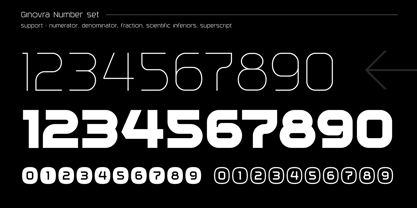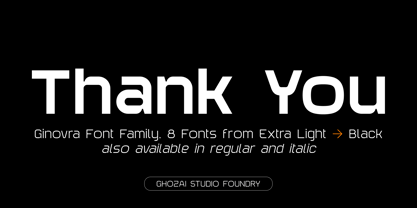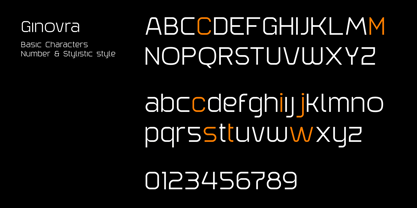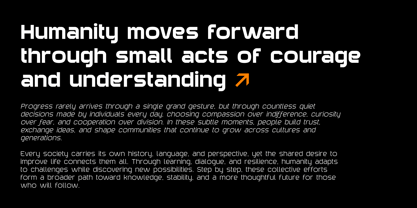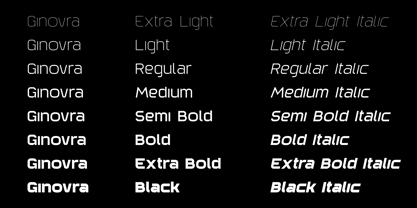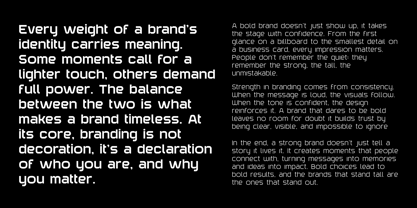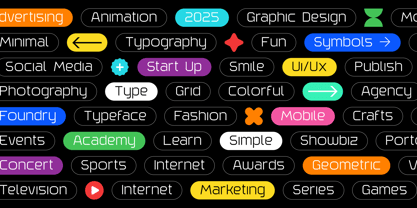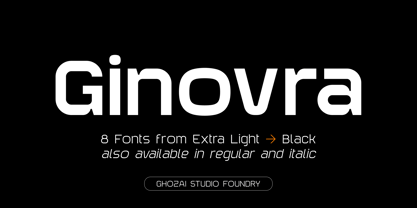
Ginovra
by Ghozai Studio
The Ginovra Font Family was designed by Manzur Ghozaali and published by Ghozai Studio. Ginovra contains 16 styles and family package options. More about this family
Ginovra is a grotesk-sans font family that offers 8 weights, ranging from Extra Light to Extra Bold, along with an italic option, totaling 16 fonts within one family. With a diverse array of weights, symbols, OpenType features, and multilingual glyph support, Ginovra ensures versatility for various languages and design requirements. Its modern, clean, and bold aesthetic makes it suitable for numerous applications, including display, branding, signage, festival posters, sports, and more. Whether crafting impactful headlines, distinctive logos, or clear signage, Ginovra combines style with functionality. Its adaptability allows it to fit seamlessly into different design styles, making it the ideal choice for any project that demands a bold and contemporary touch.
Designers: Manzur Ghozaali
Foundry: Ghozai Studio